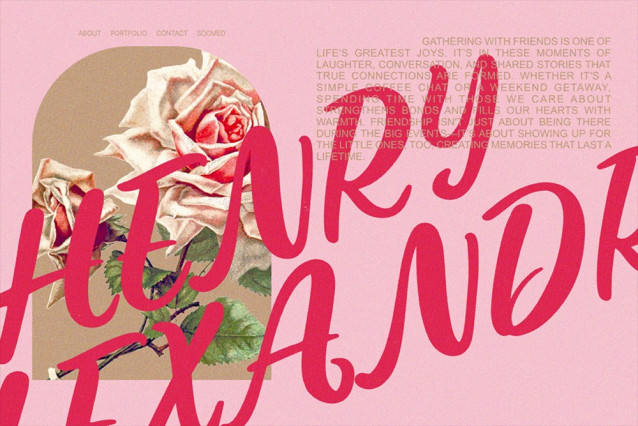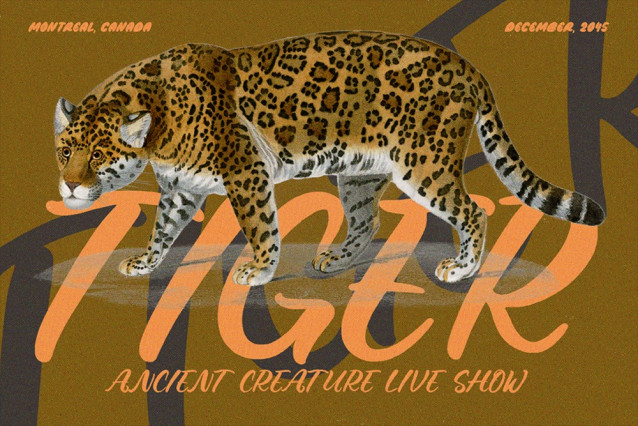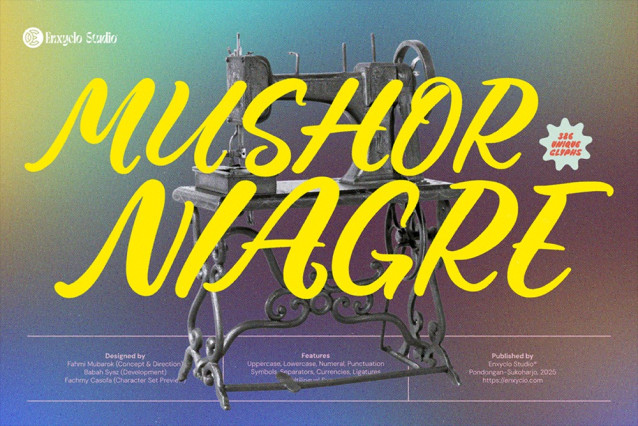
Mushor Niagre Font
Mushor Niagre Font is an expressive brush script font with a strong vintage and handmade feel. Inspired by classic handwritten styles full of character, this font delivers a dynamic yet elegant impression—perfect for design projects that aim to stand out with style and class. Mushor Niagre offers flexibility and uniqueness to strengthen your brand’s visual identity. Ideal for retro-themed designs, fashion editorials, handmade product labels, or branding that seeks a truly authentic touch.